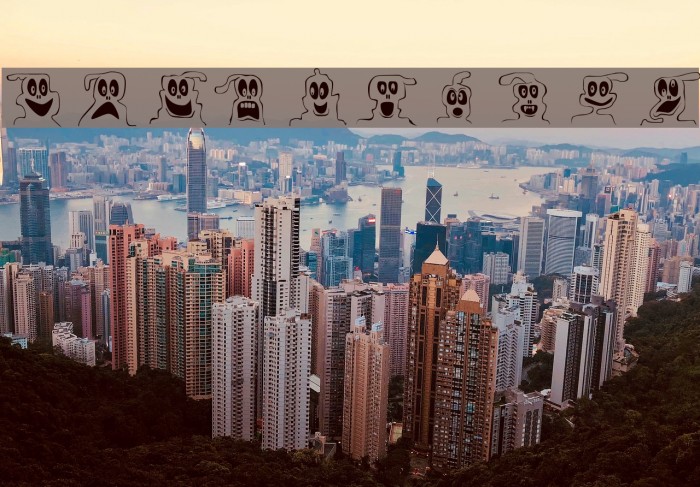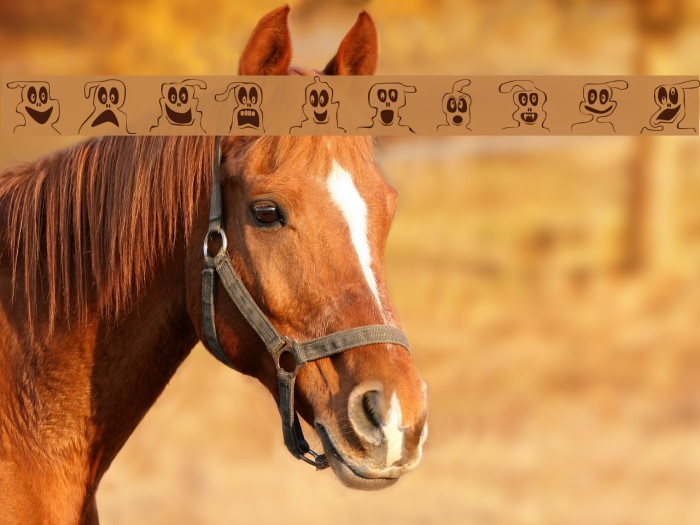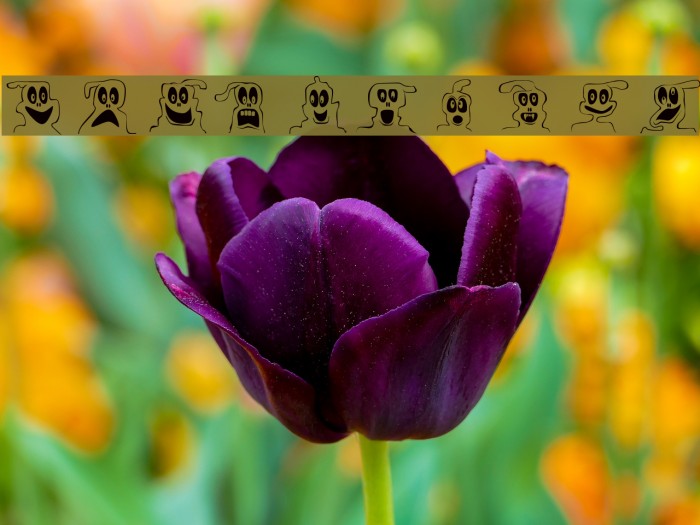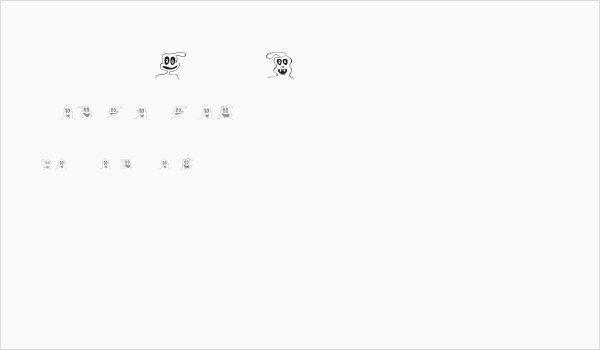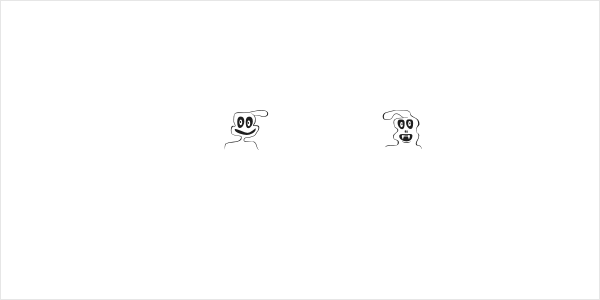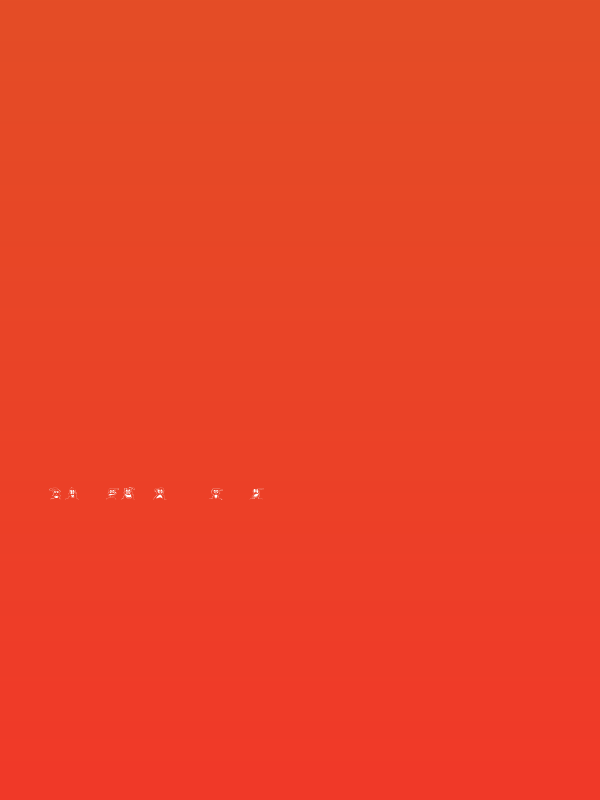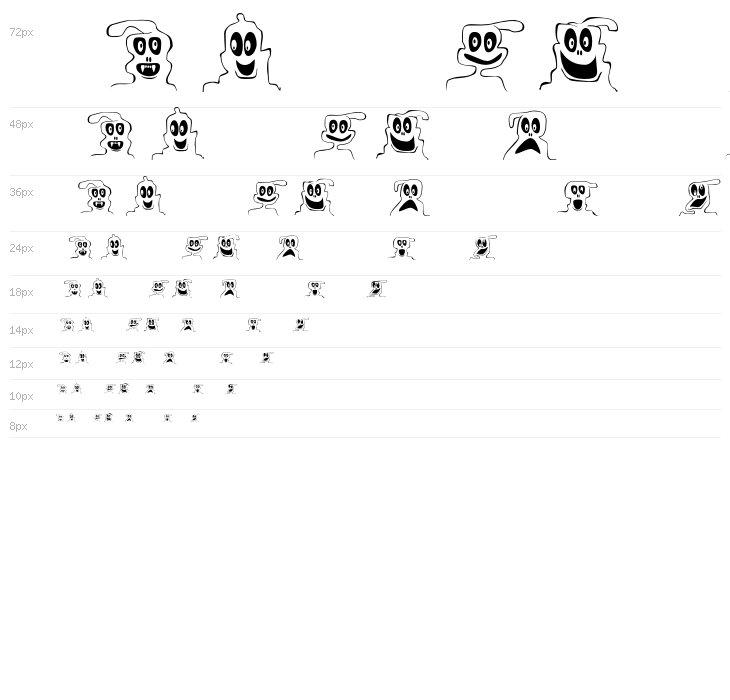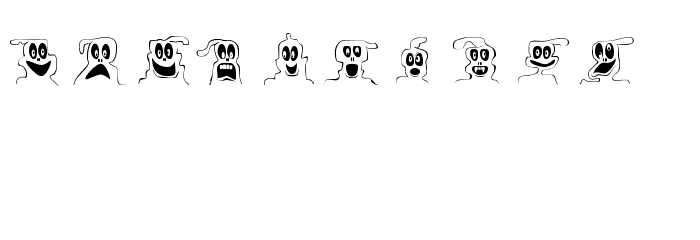
FE-10Lil'Ghosts Font
A playful, decorative typeface featuring cartoon ghost characters with expressive faces for each glyph, using thin, irregular outlines and minimal solid fills to convey a whimsical and lighthearted mood.
Overall StylePlayful, Whimsical, Decorative
Use CaseHeadlines, Posters, Themed Graphics
Proposed ProjectsHalloween party invitations, children's books, themed posters, playful branding, greeting cards.